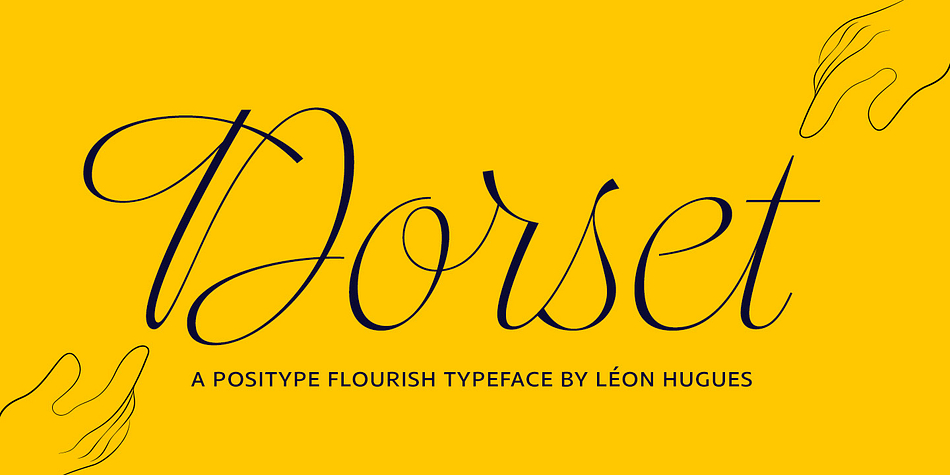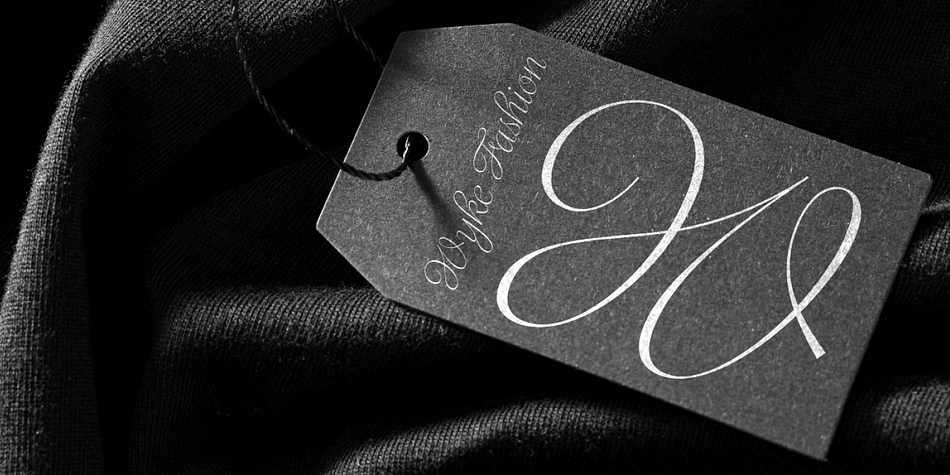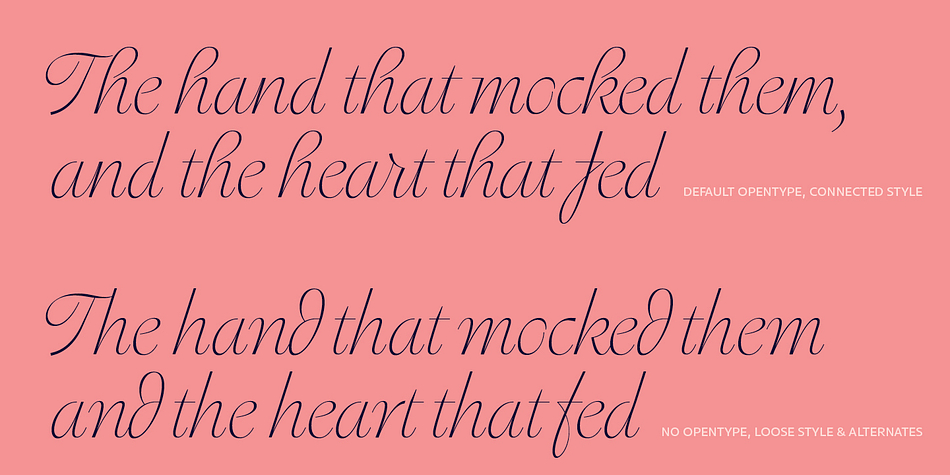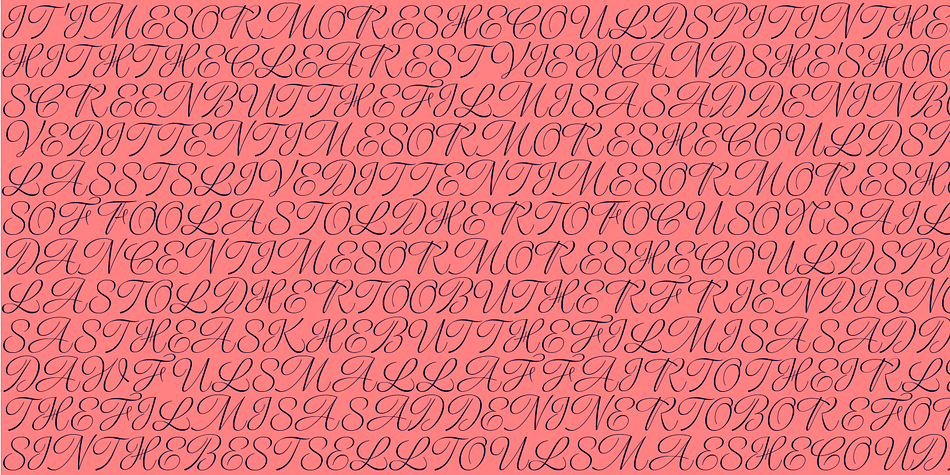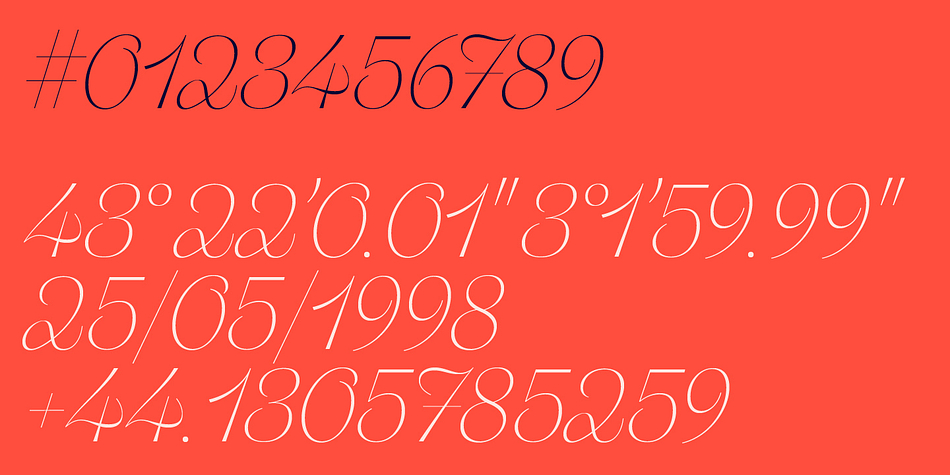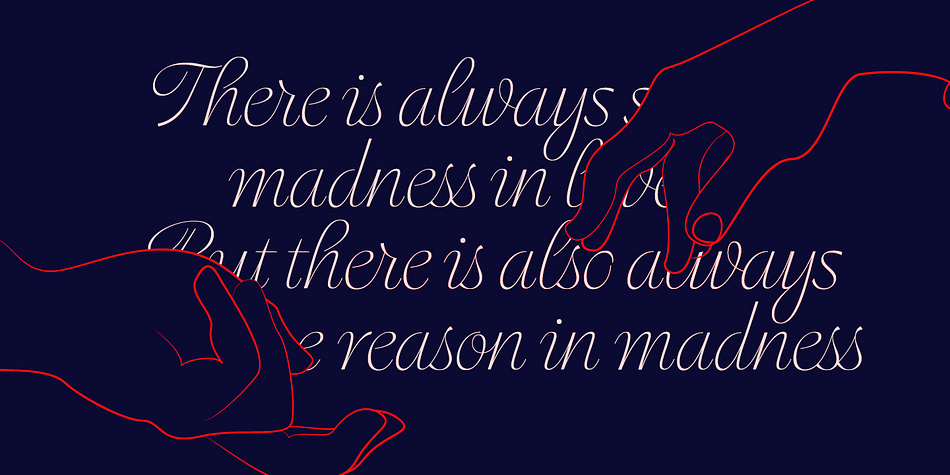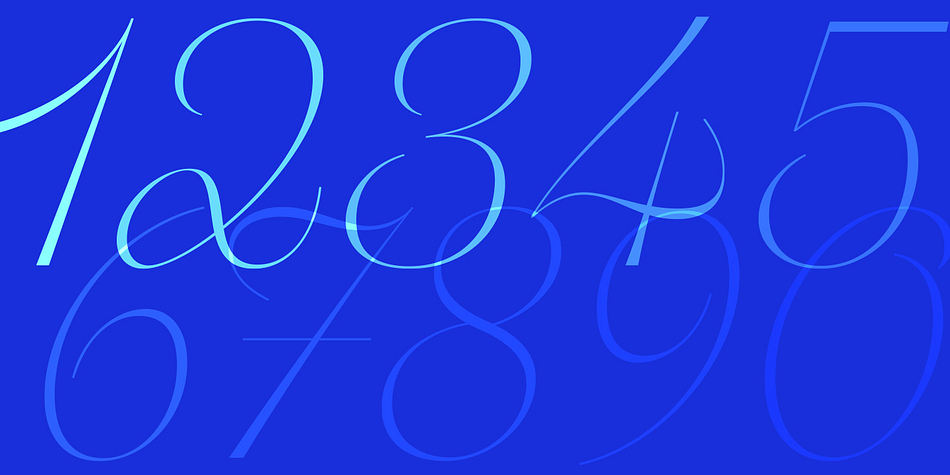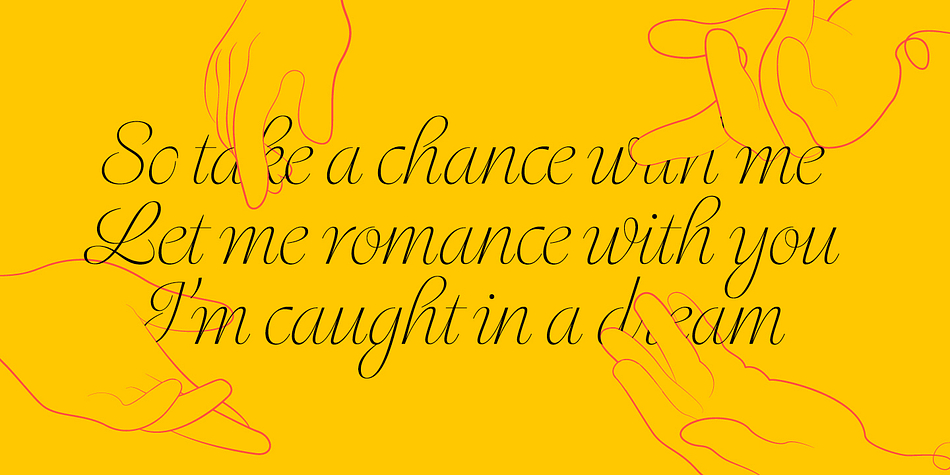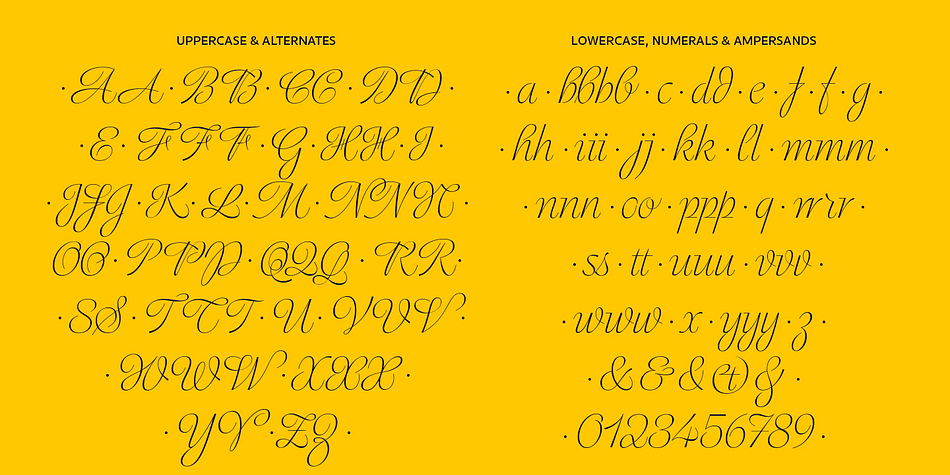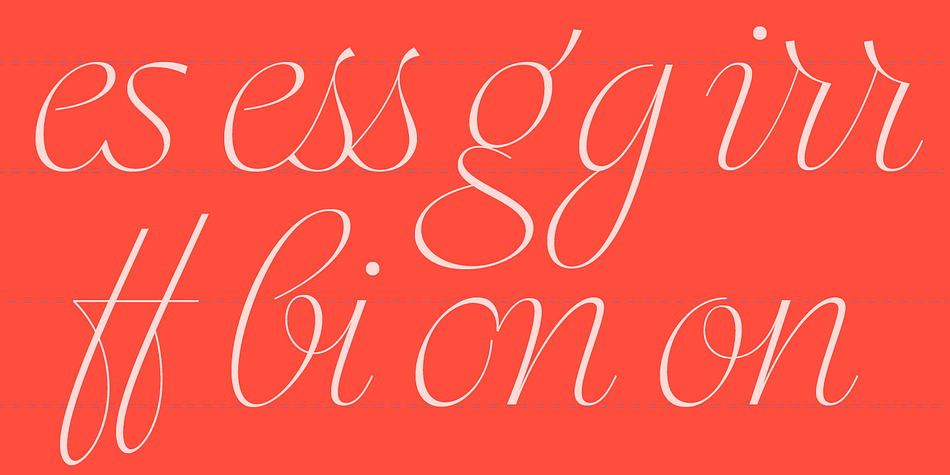
Designed by Léon Hugues, Dorset is a script font family published by Positype.
Dorset marks Léon Hugues first script typeface and first release with the Positype Flourish label. Built crosscurrent to a strict revival or calligraphic digitization, Dorset’s aim was to understand how a font could interact with various calligraphic influences in a single execution and how that interpretation by Léon would lead to new, exclusive design choices.
The design purposely chose to connect various gestures from Spencerian handwriting and copperplate calligraphy and meld that with his initial experiments with fine, flat nibs. The result is wholly unique and useful when clear, open, and legible script typography is desired.
OpenType features included in this typeface allow the user to seamlessly move from an italic to connected script, while the various stylistic sets can lead you to variations of texture and rhythm, allowing for a more personal and exact expression.